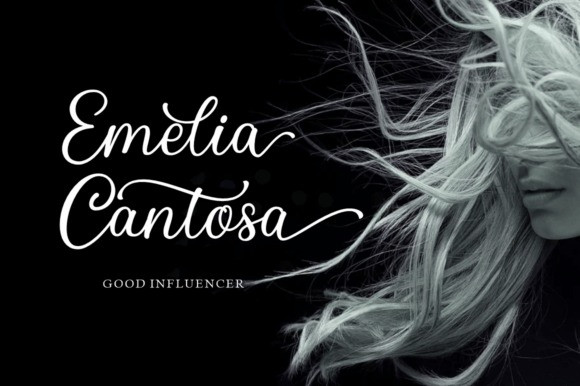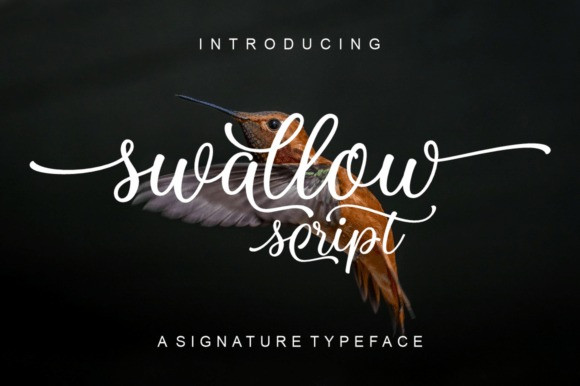
Swallow Script Font
Swallow Script Font, is a dazzling script font. This font is neatly crafted and highly detailed. Whatever the topic, this font will be a wonderful asset to your font library, as it has the potential to enhance any creation.